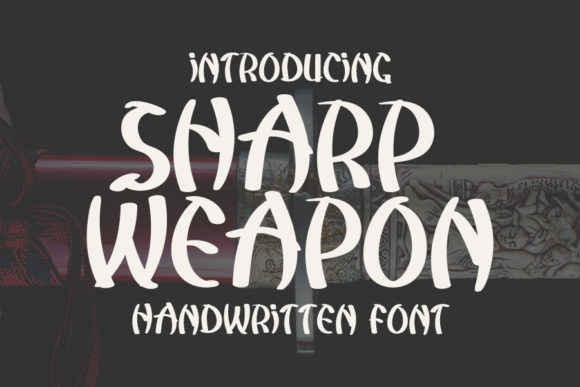
**Introducing Sharp Weapon: The Font That Will Sharpen Your Designs**
In the realm of typography, it's all about making a statement, and our Sharp Weapon font is here to do just that. This captivating display font, a masterpiece from the renowned Inermedia STUDIO, is a force to be reckoned with. It's not just a font; it's a weapon of creativity, ready to elevate your designs to new heights.
We live in an app-centric world, where every tap and swipe carries the weight of user experience. Sharp Weapon, with its innate flair for app design, will transform your digital creations into captivating masterpieces. It's crafted with the precision of a surgeon's blade, each stroke surgically designed to create a visual impact that will leave users mesmerized.
The genesis of Sharp Weapon lies in calligraphy's timeless elegance. It's a font that respects tradition while boldly embracing modernity. Its sharp edges and bold curves exude a contemporary vibe, making it the perfect choice for any project that demands a touch of sophistication and style. Whether it's app design, branding, or the creation of eye-catching headlines, Sharp Weapon will slice through the competition with its unparalleled sharpness.
But don't just take our word for it. Here's a quick glimpse into the Sharp Weapon experience:
* **App Design Maestro:** Sharp Weapon was born to rule the app world. Its clean lines and modern aesthetics will make your app interfaces pop, leaving a lasting impression on every user.
* **Branding with an Edge:** Sharp Weapon is not just a font; it's a branding powerhouse. Its bold and confident strokes will add instant credibility and professionalism to your brand, making you stand out from the crowd.
* **Headline Hero:** Tired of boring headlines that blend into the background? Sharp Weapon is your secret weapon. Its commanding presence will draw attention to your headlines, ensuring they cut through the digital clutter.
Sharp Weapon is more than just a font; it's an investment in your creative arsenal. It's a tool that will empower you to create designs that stand out, make a statement, and leave a lasting impact. So why settle for ordinary when you can wield the Sharp Weapon?